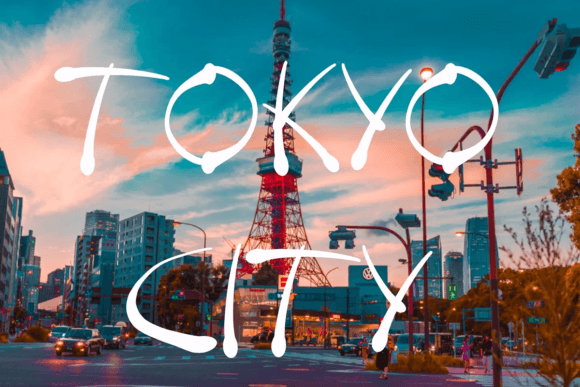
Tokyo City Font
Behold, Tokyo City Font - a captivating script font that dances across your screen like a ray of sunshine! Crafted with meticulous care by the ingenious minds at Rasmindos, this font is not just a collection of letters; it's an artistic journey waiting to be embarked upon.
Tokyo City Font is a symphony of simplicity and playfulness, a handwritten font that exudes charm and personality. Its free-flowing strokes and elegant curves bring a touch of whimsy to any project, whether you're creating digital designs, crafting handmade cards, or delivering show-stopping presentations.
With Tokyo City Font as your creative companion, you'll discover a world of endless possibilities. It's the perfect font to add a personal touch to your social media posts, effortlessly elevate your digital designs, and create eye-catching headlines that demand attention.
Imagine your words taking center stage, adorned with the enchanting flair of Tokyo City Font. Your designs will radiate a unique charm, your presentations will captivate audiences, and your social media posts will shine brighter than the city lights themselves.
Tokyo City Font isn't just a font; it's an experience. It's an invitation to let your creativity soar, to embrace the beauty of imperfection, and to make a statement with every word you write. So why settle for ordinary fonts when you can embrace the extraordinary?